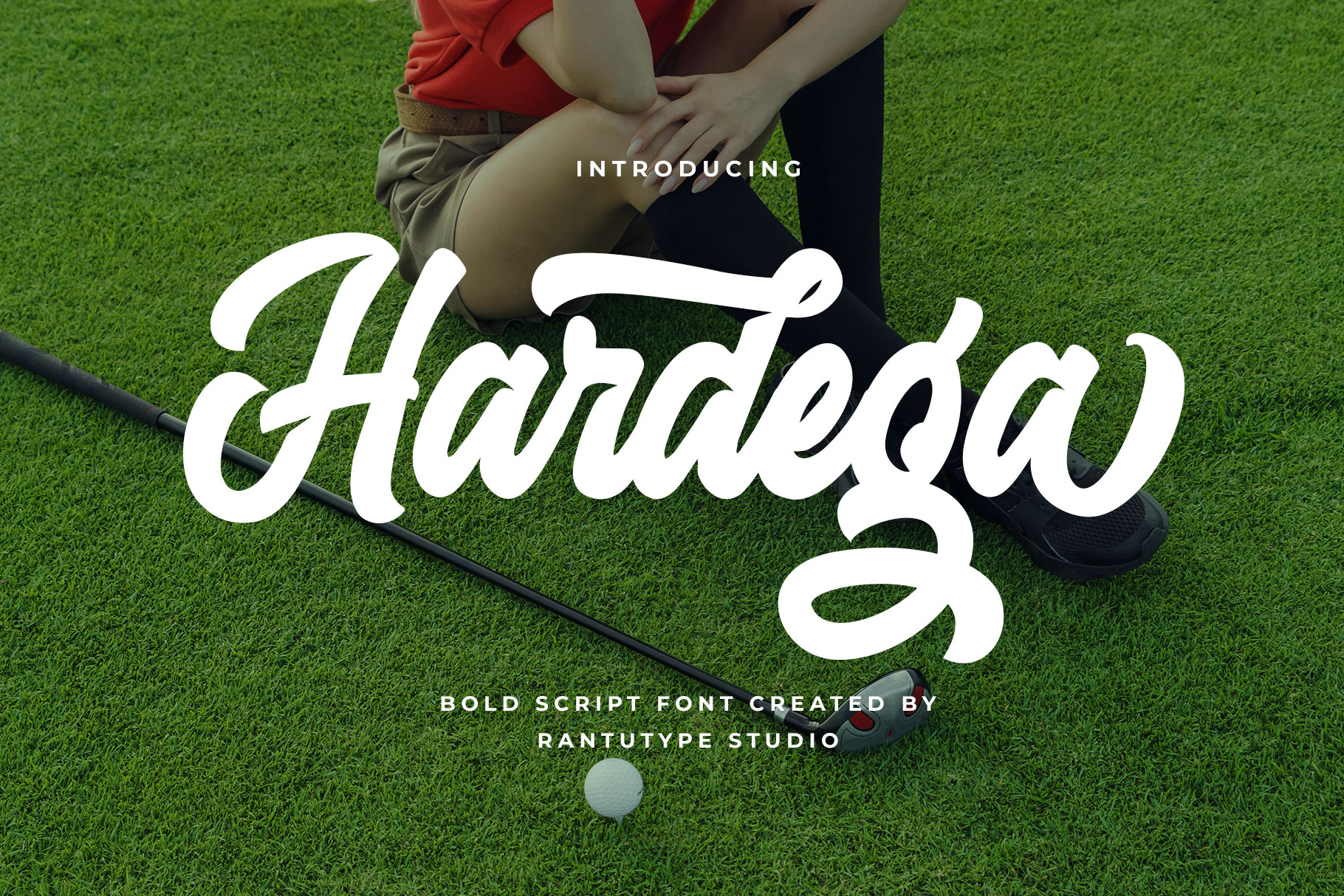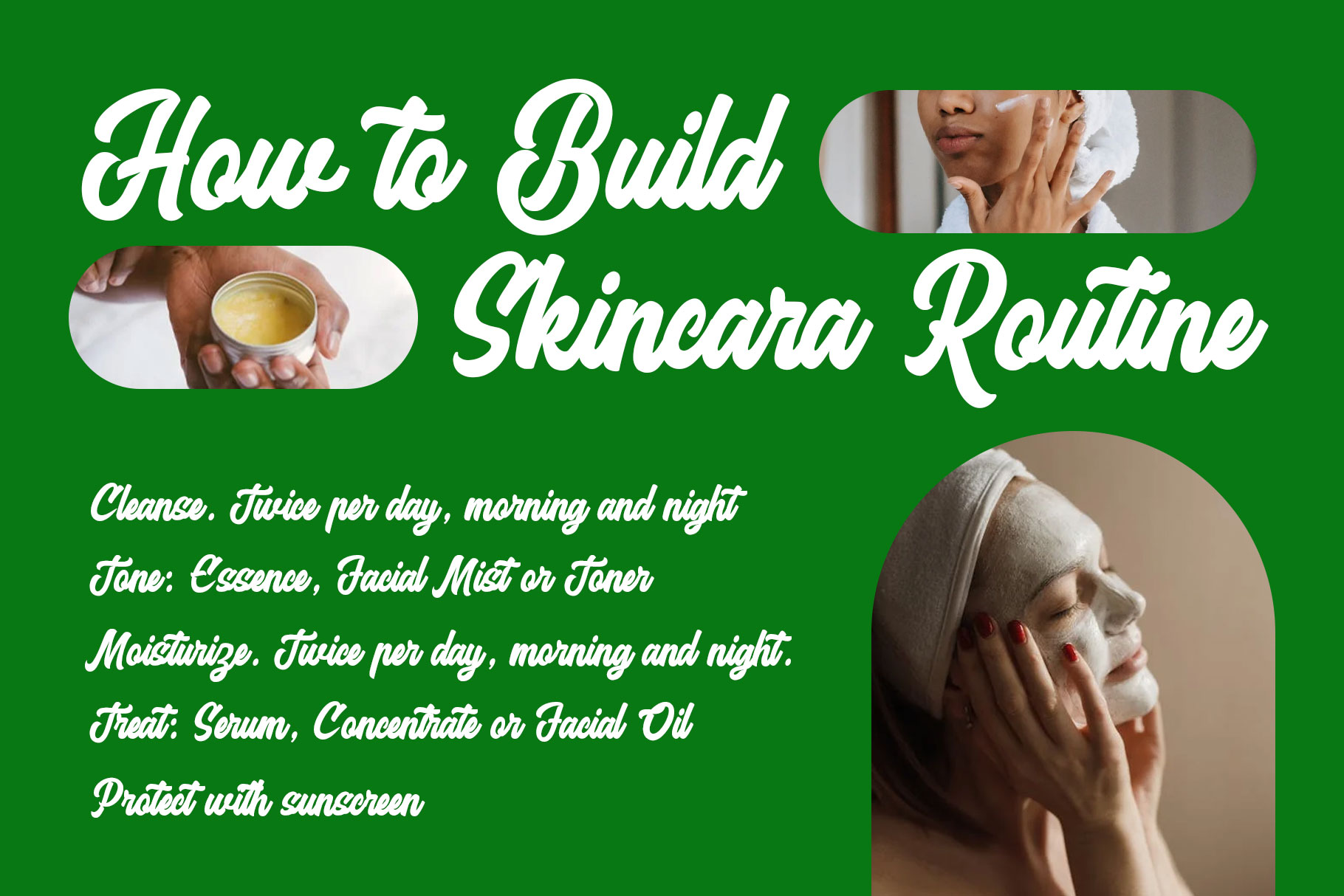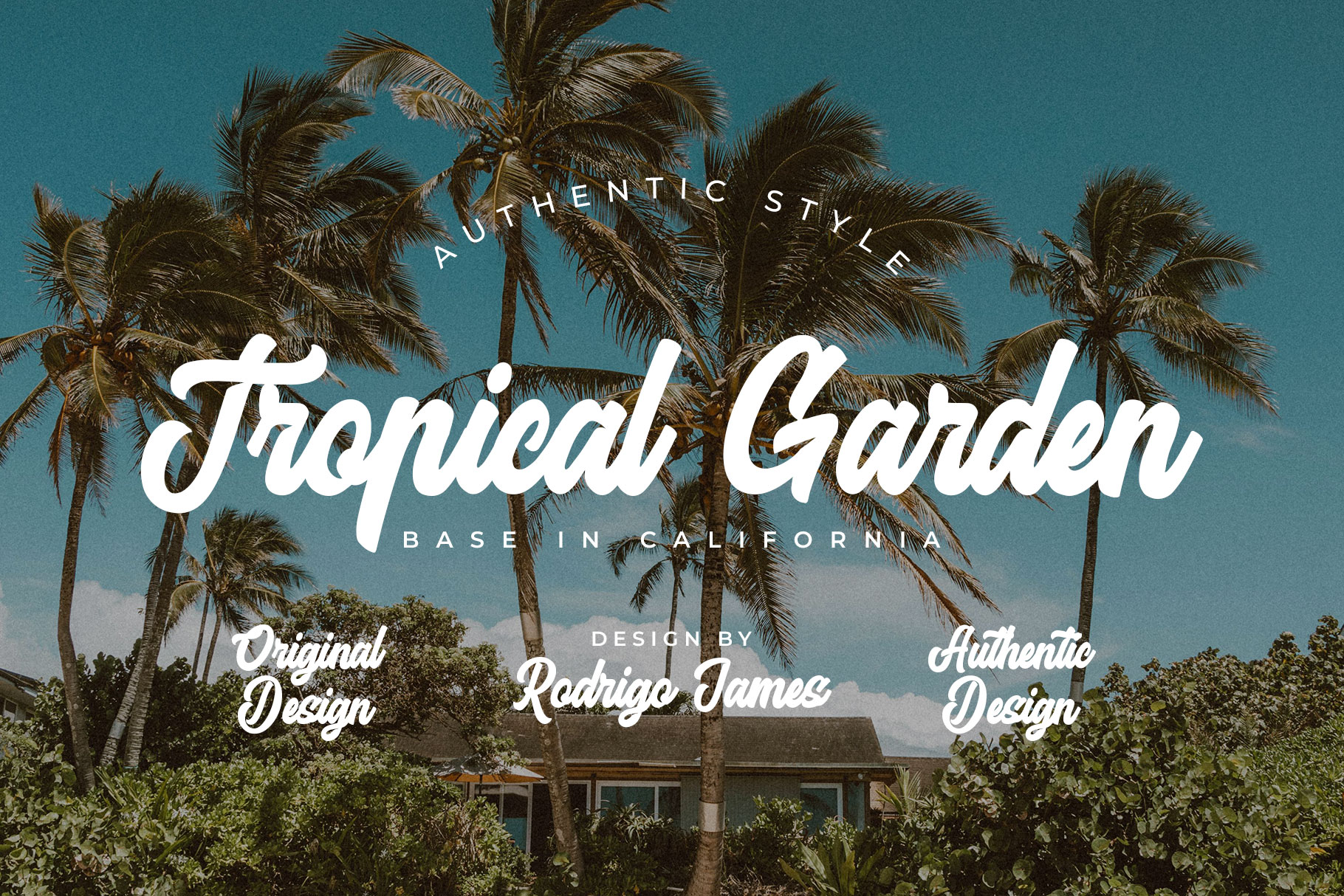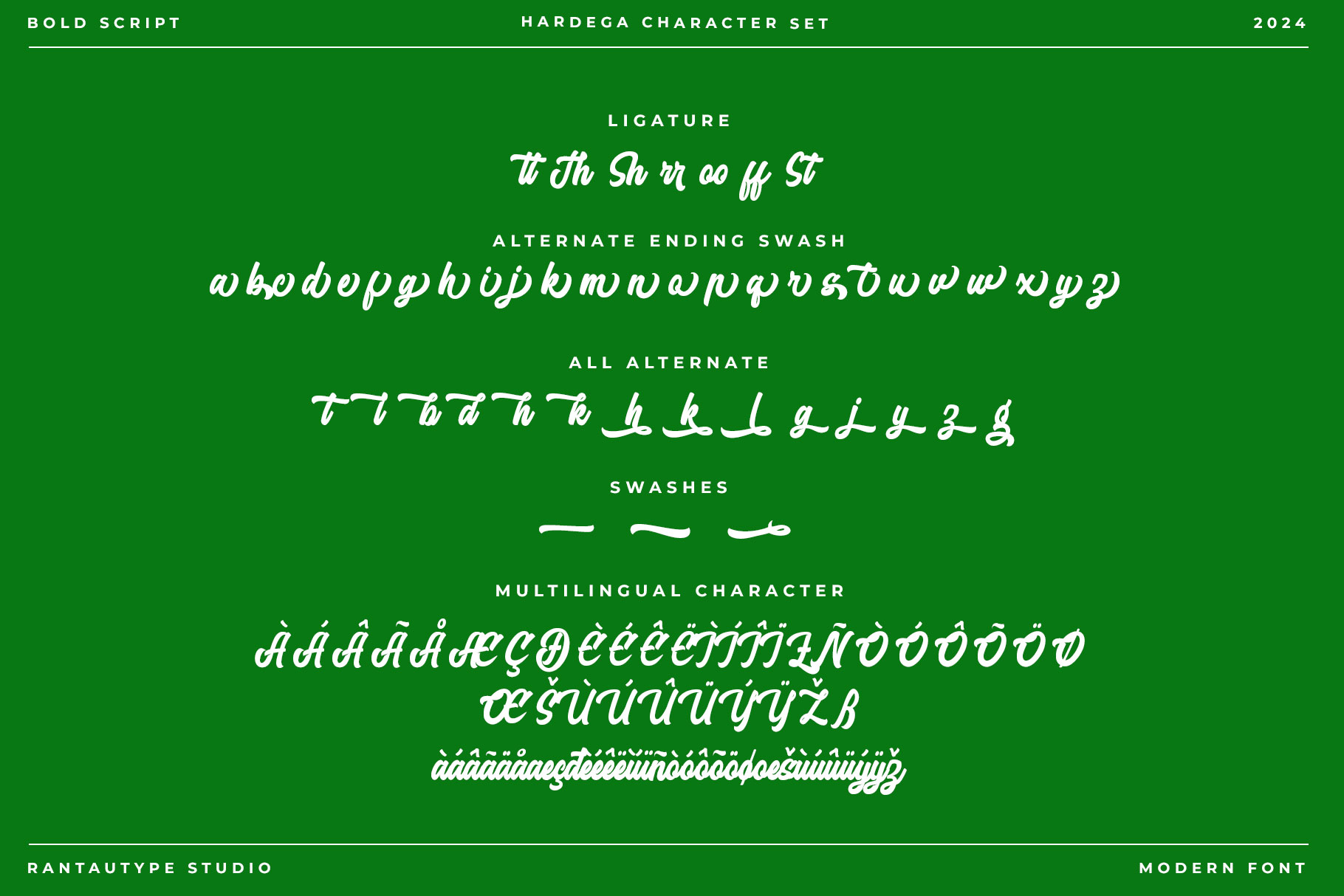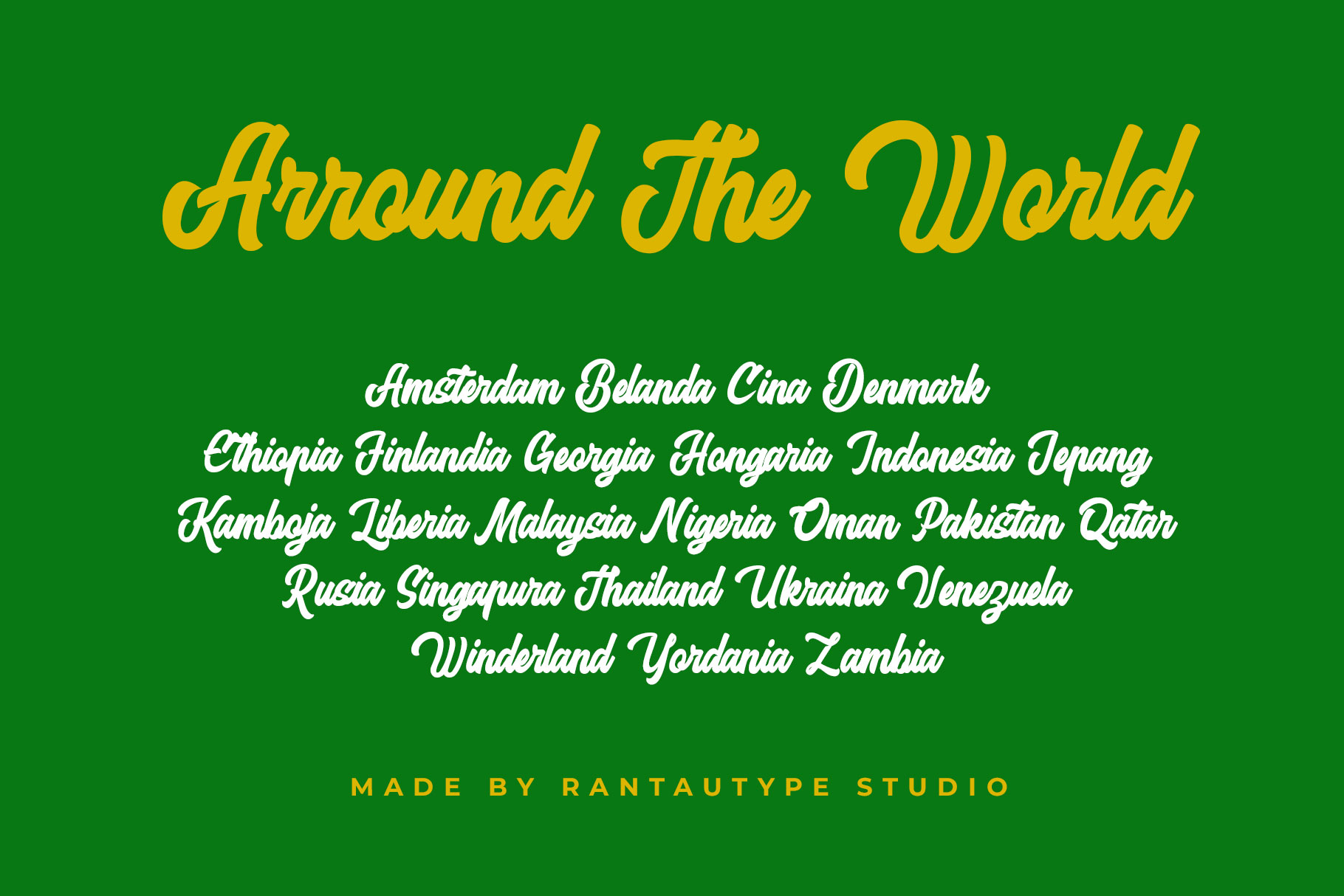
Hardega Bold Script Font
Hardega is bold script font with modern authentic style. Hardega bring unique shape in each detail character and versetile. Hardega is a perfect choice for any creative endeavor, lifestyle design such as logos, title, watermark on photography, cover, branding, display and magazine, wedding event, corporate brand, quotes, album cover, business card, business project, company branding and more project with handwritten taste.